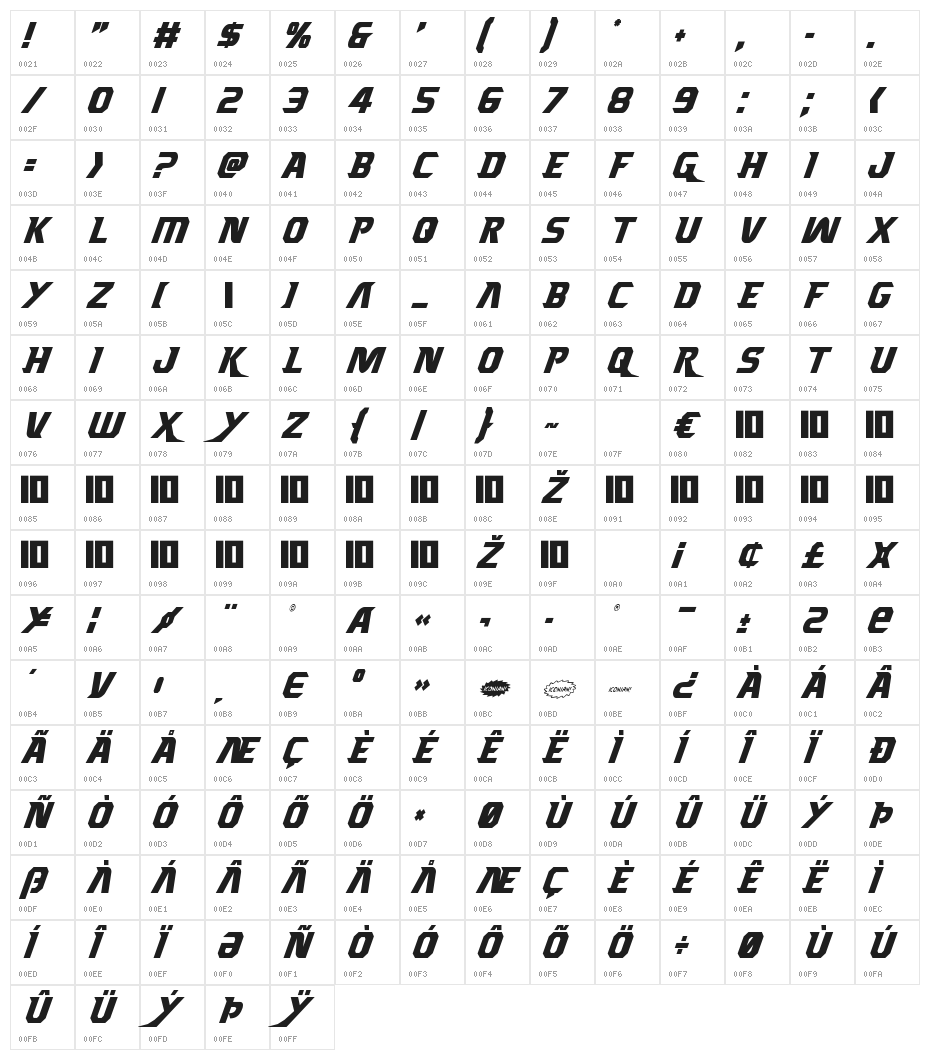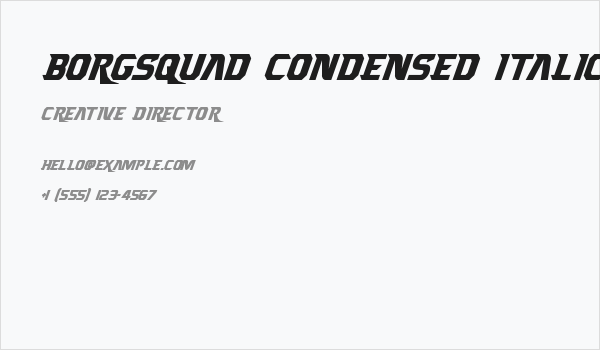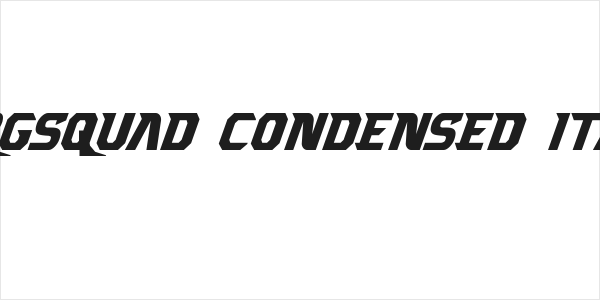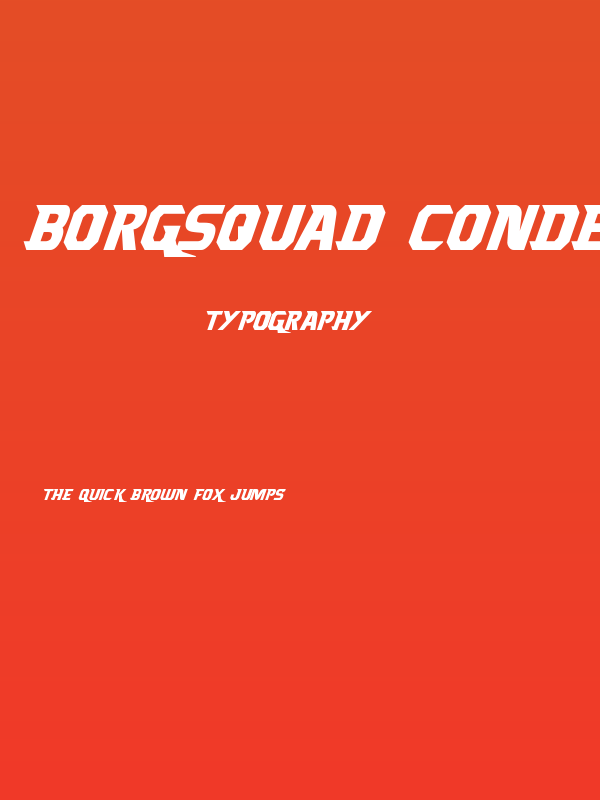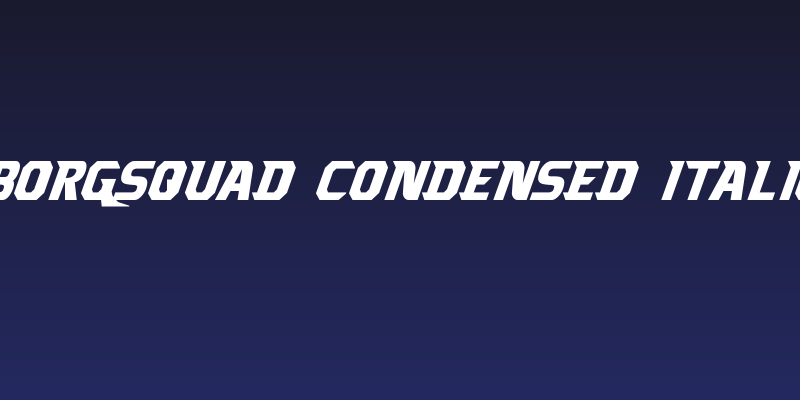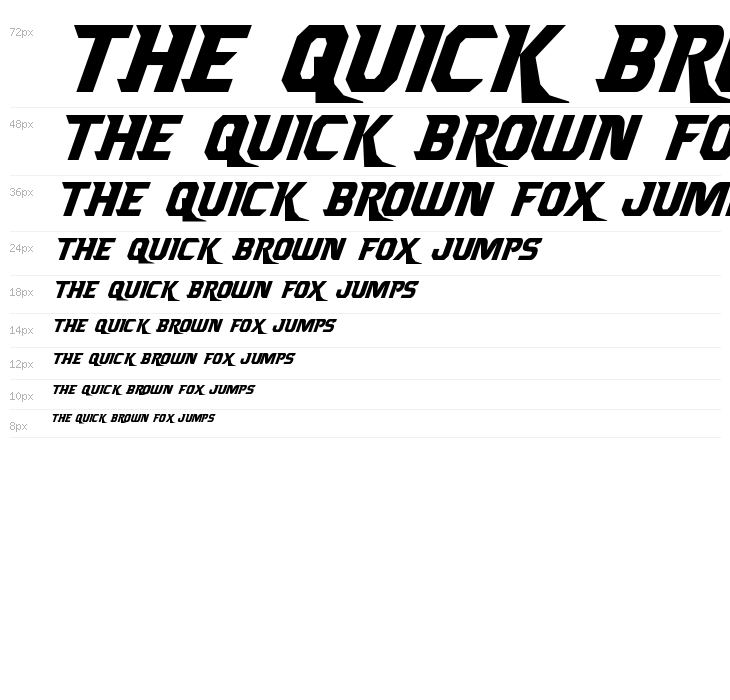
Borgsquad Condensed Italic Font
Borgsquad Condensed Italic Description
This font features a bold and dynamic style with a condensed and italicized form. The characters are sharply angled, giving a futuristic and aggressive appearance. The strokes are thick and consistent, contributing to a strong visual impact. The uppercase and lowercase letters maintain a uniform height, enhancing readability while preserving the unique style. Numbers and special characters follow the same design principles, ensuring a cohesive look across all text elements. The font's geometric and angular design makes it ideal for projects that require a modern and edgy aesthetic.
Proposed ProjectsIdeal for sci-fi themed posters, video game titles, branding for tech companies, and sports team logos.